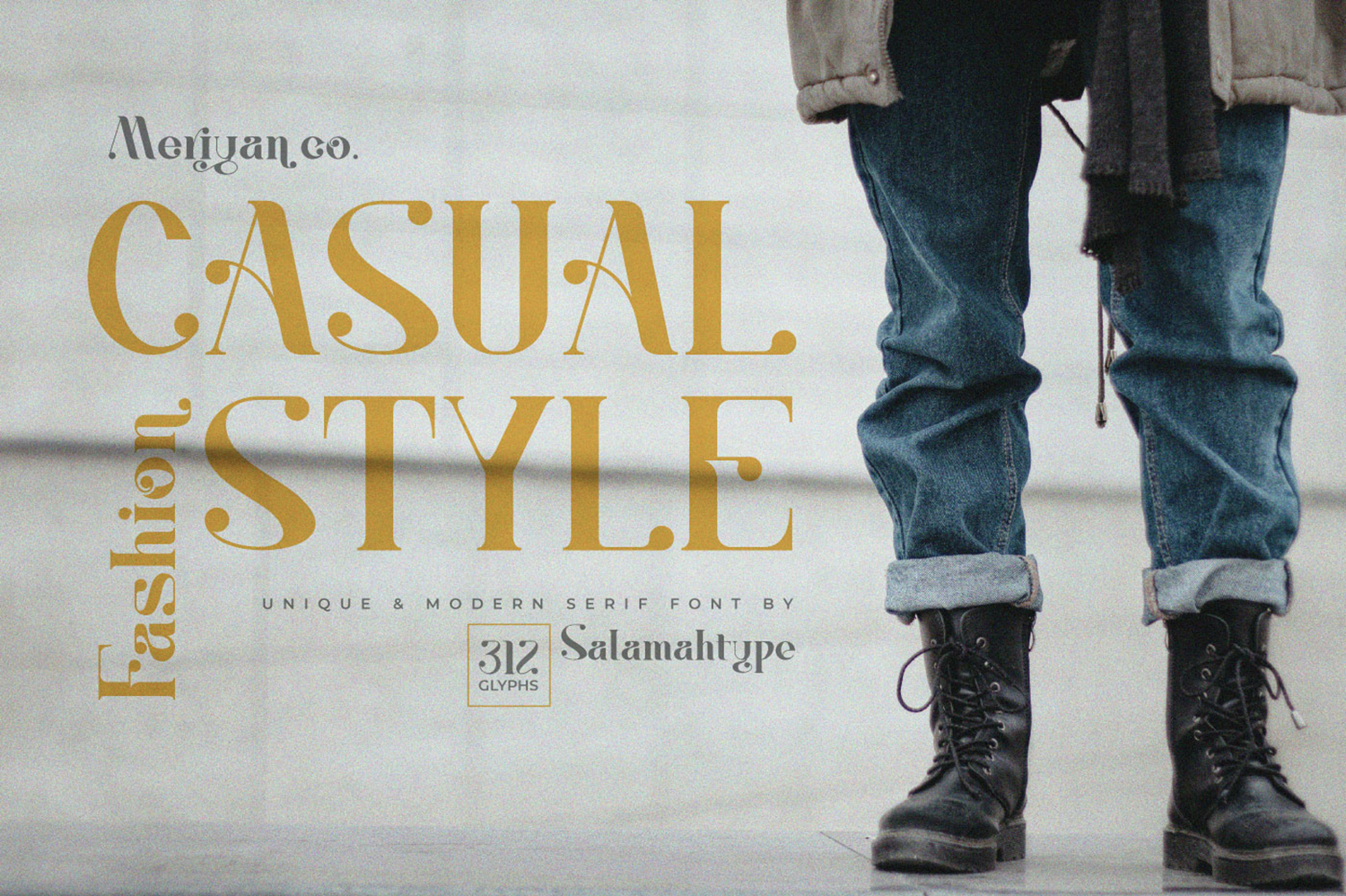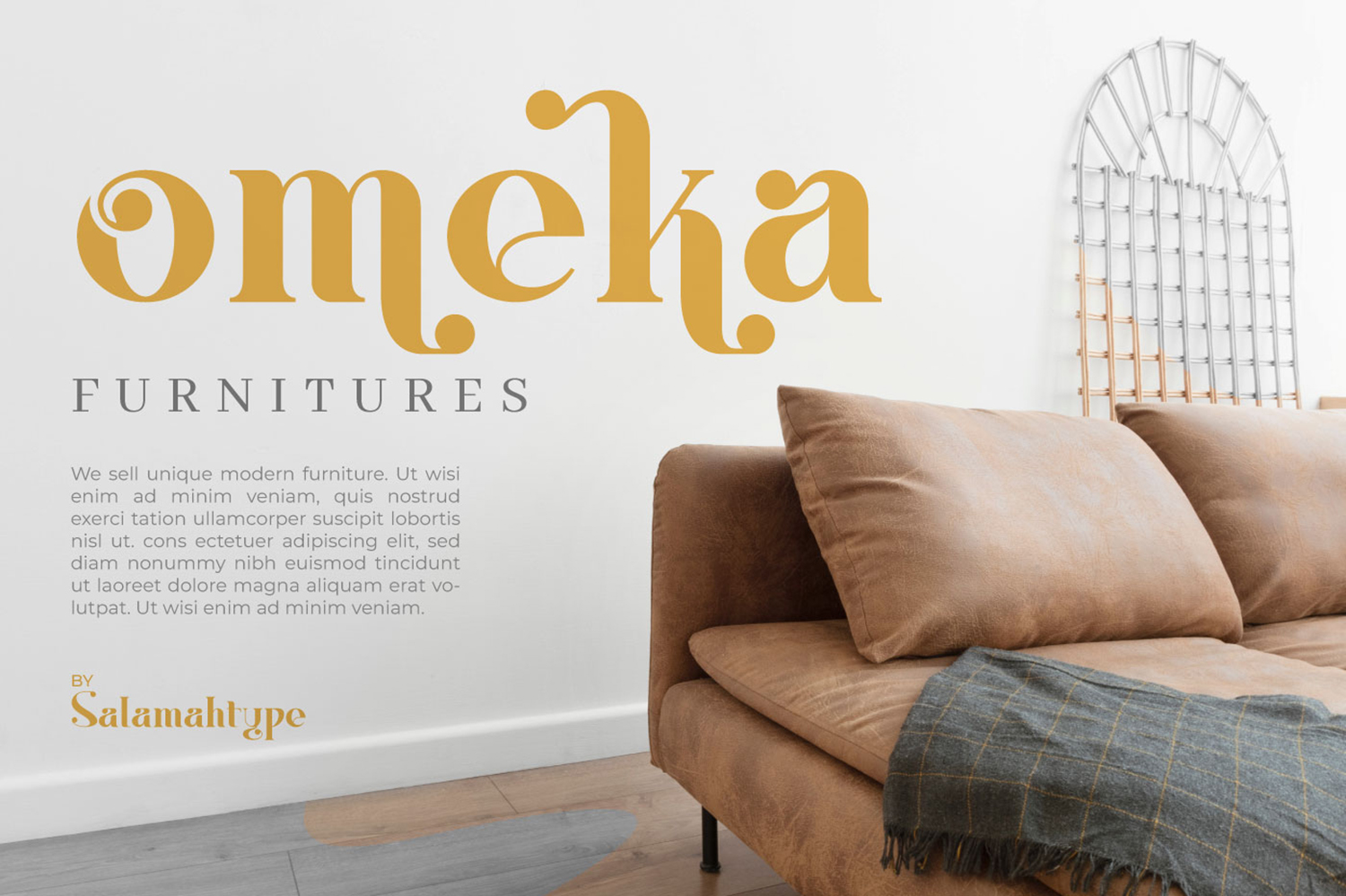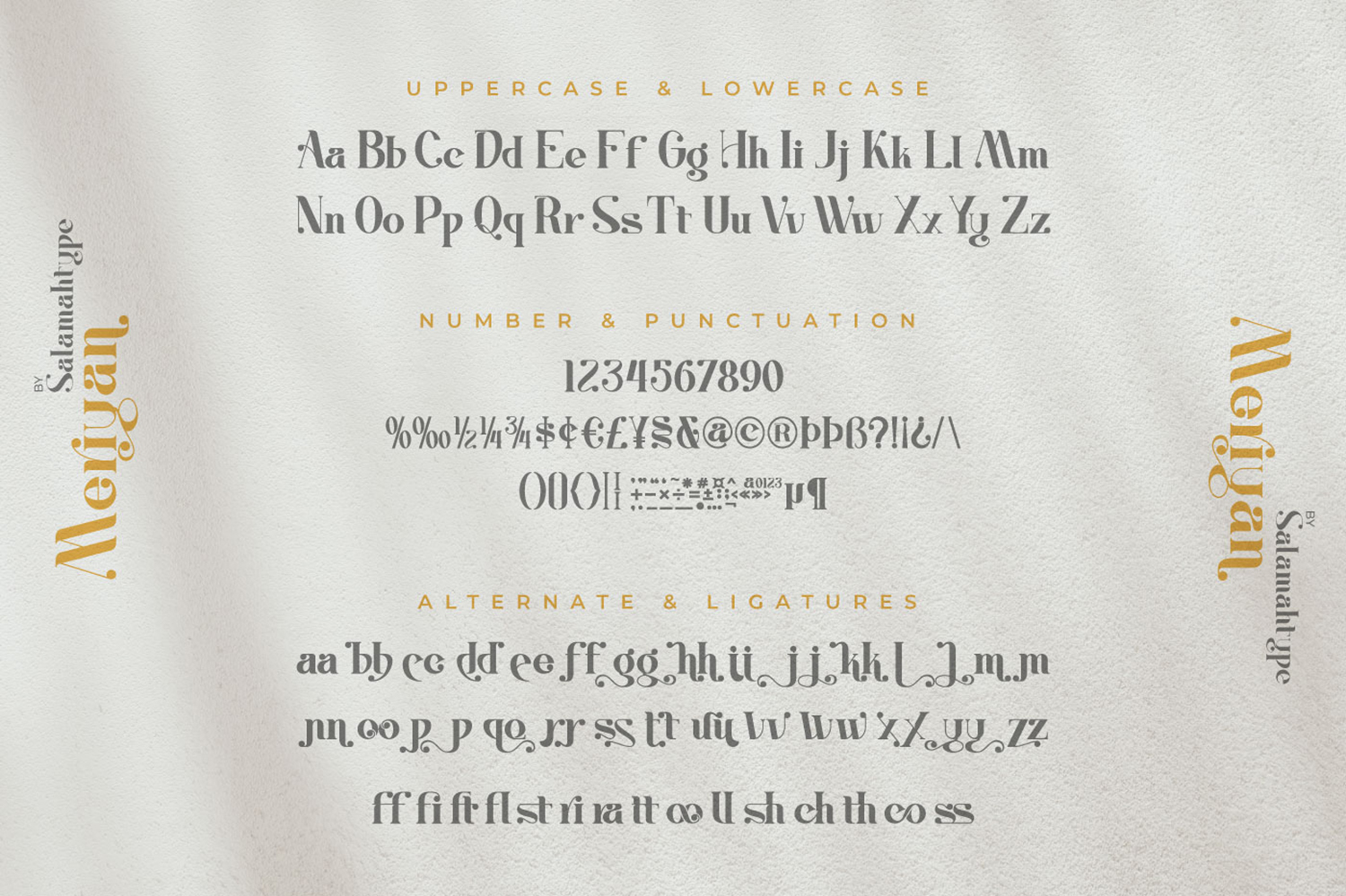
Meriyan Free Font
Meriyan Free Font stands as a distinctive and bold serif font, tailor-made for branding initiatives, logos, engaging social media posts, impactful advertisements, eye-catching product packaging, innovative product designs, striking labels, captivating photography enhancements, subtle watermarks, elegant wedding invitations, and a myriad of other creative ventures. Integrate it into your designs, and witness its ability to captivate everyone’s attention. This free typeface was designed by a talented Salamahtype Studio. If you like it don’t forget to check out the full version.